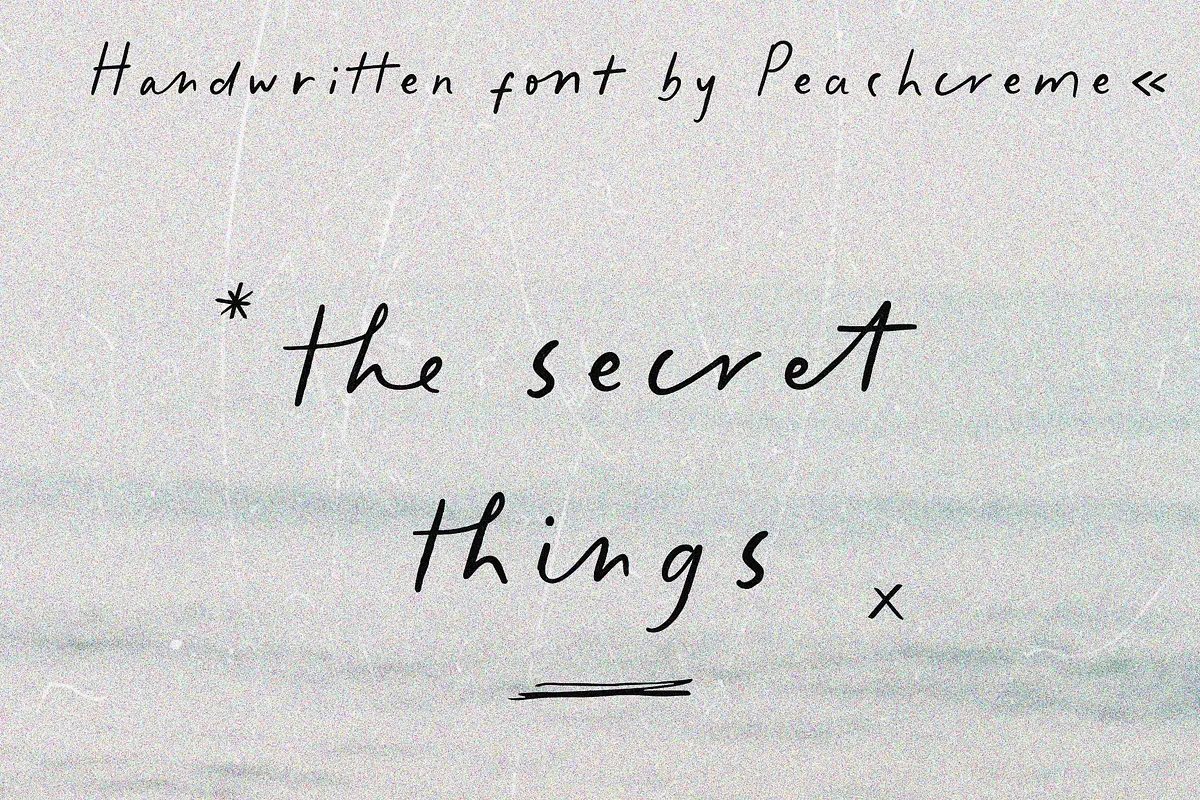
The Secret Things // Handwritten Font Free Download
The Secret Things // Handwritten Font Free Download is a whimsical and personal script typeface that brings the charm of handwritten lettering to your designs. Featuring natural curves and fluid strokes, this font is perfect for creating logos, invitations, greeting cards, branding, and social media content with a warm, authentic touch. Its expressive and unique style makes it ideal for creative projects that require a personal, artistic vibe. Whether you're designing a special event invitation, a custom logo, or a unique product label, The Secret Things // Handwritten Font Free Download allows you to experiment with its creative style in personal projects before purchasing a commercial license. Add a genuine, handcrafted feel to your designs with this beautifully crafted handwritten font.